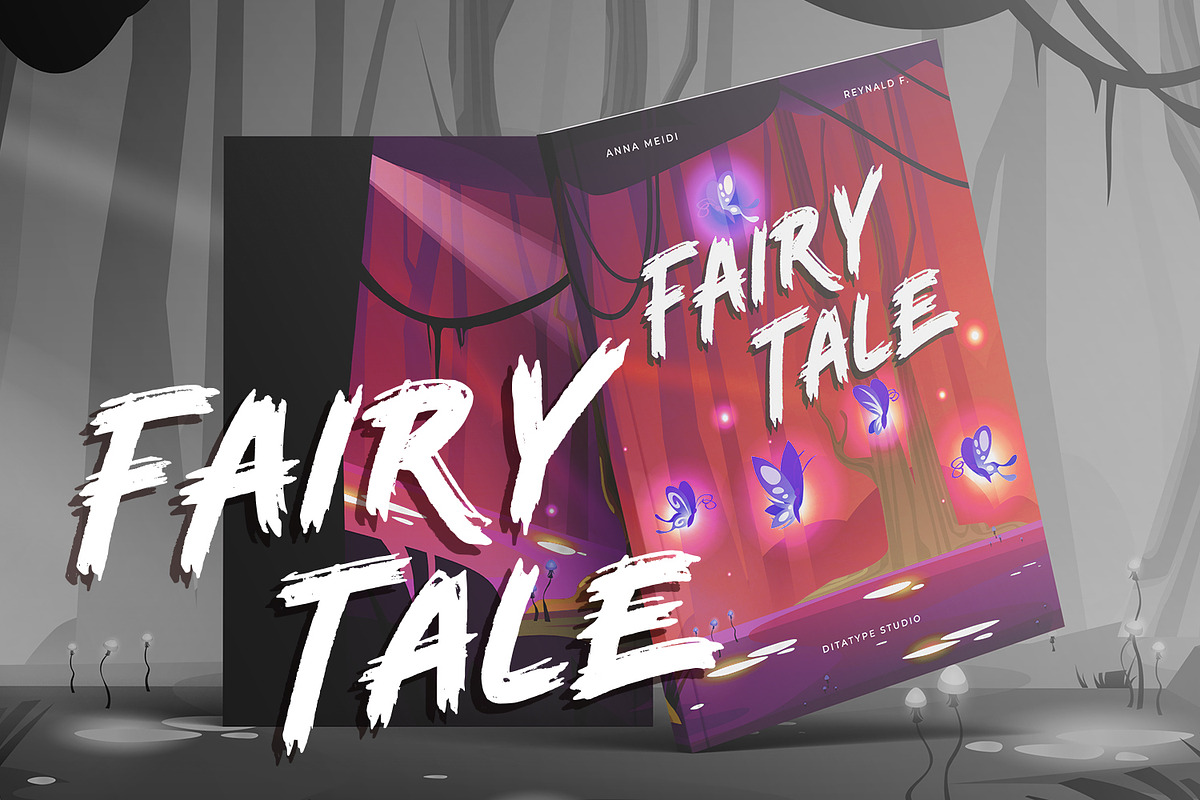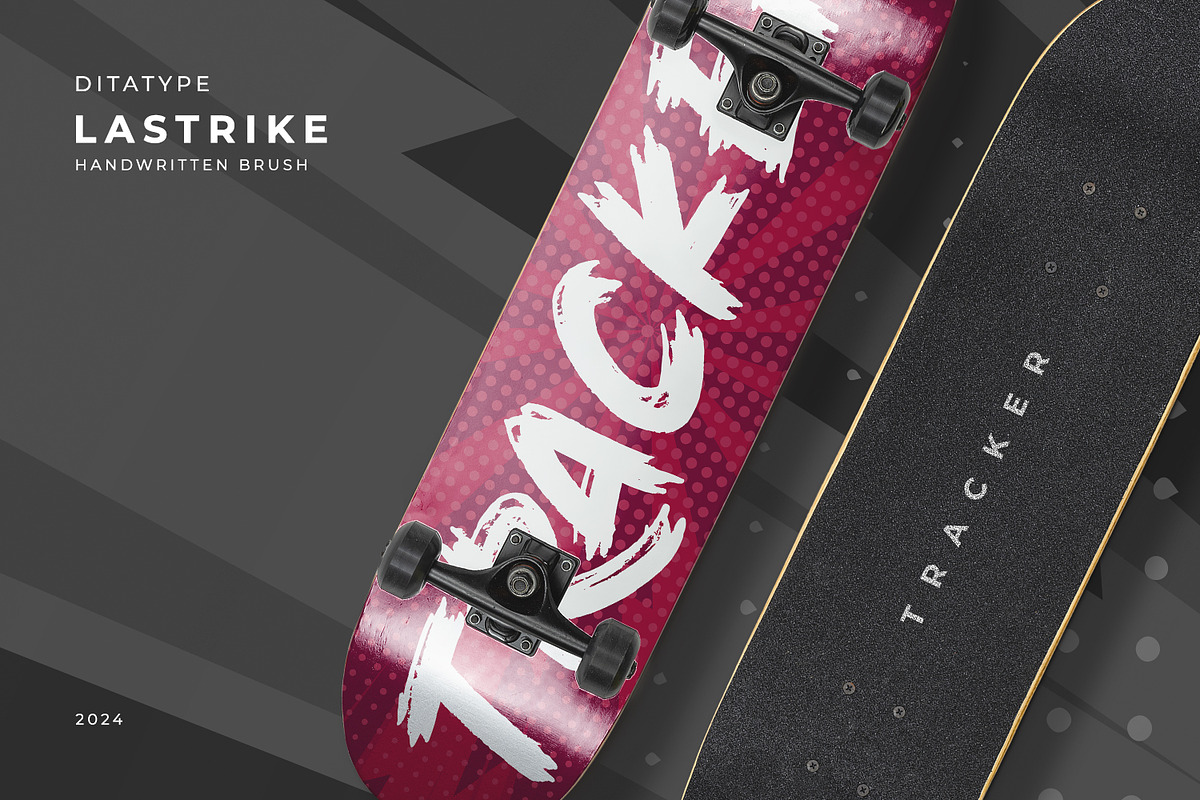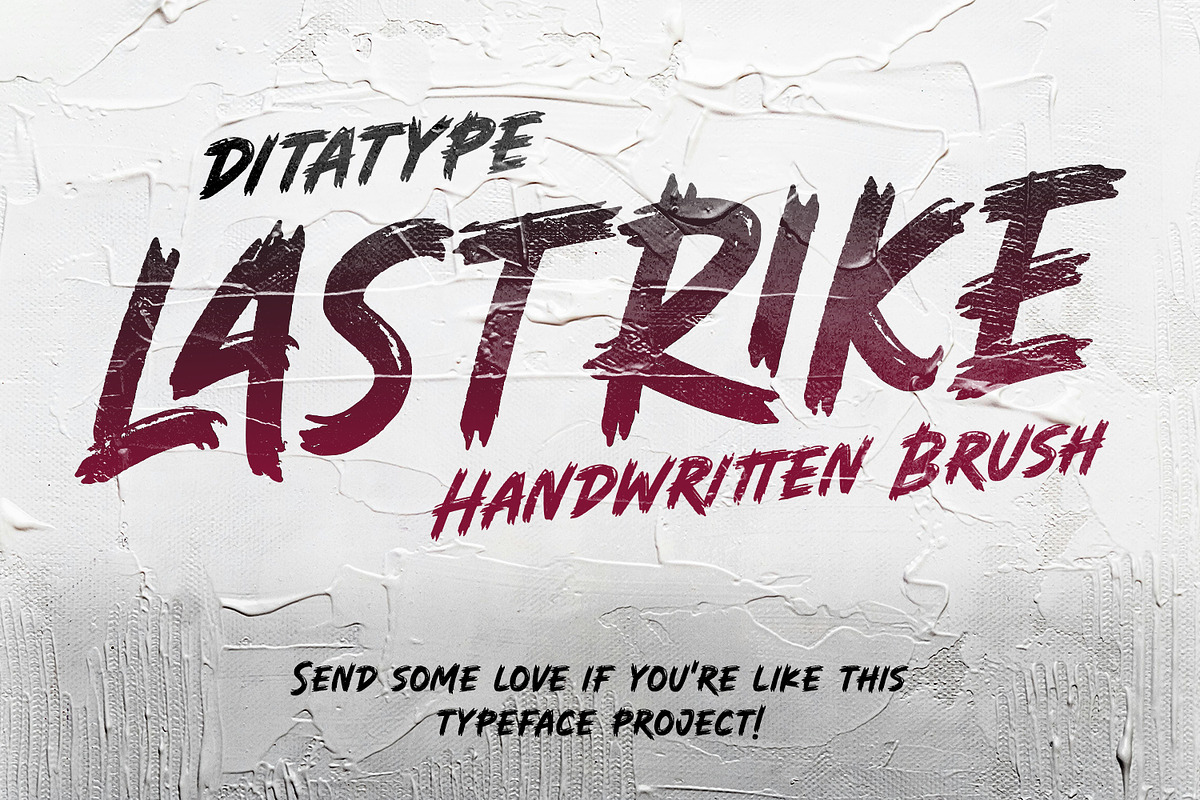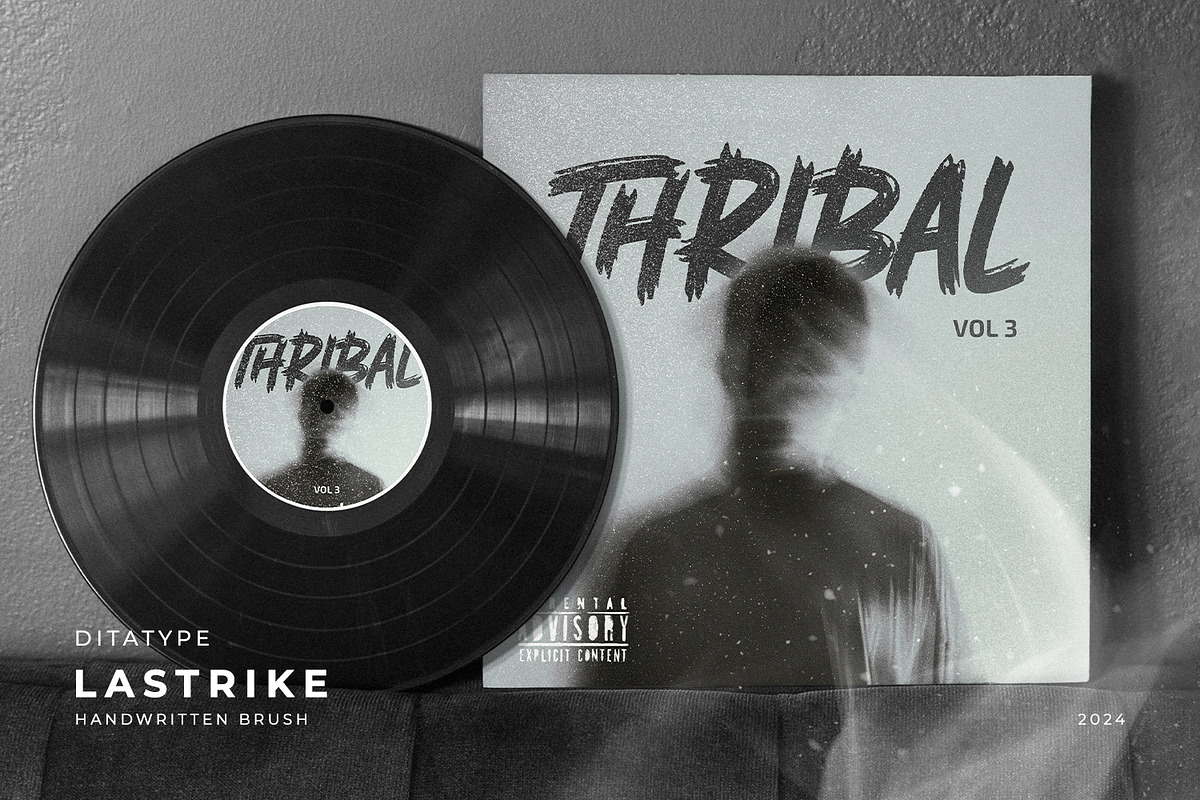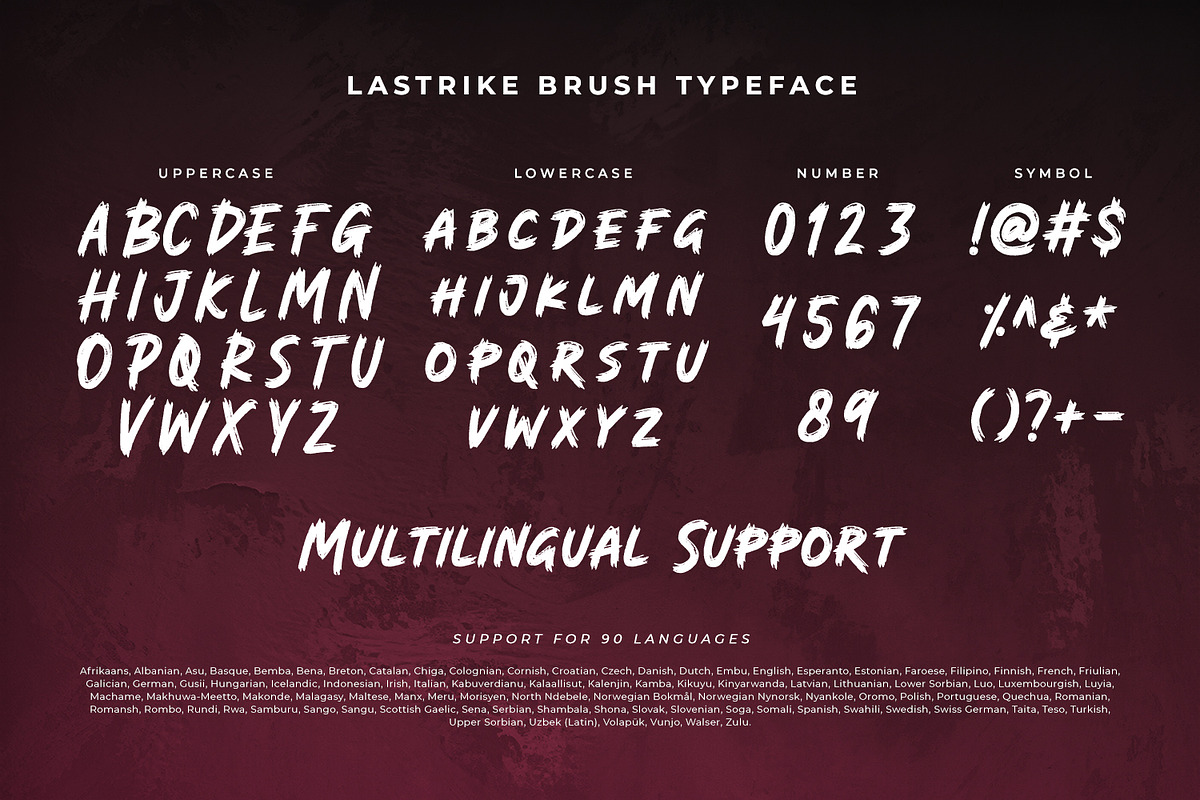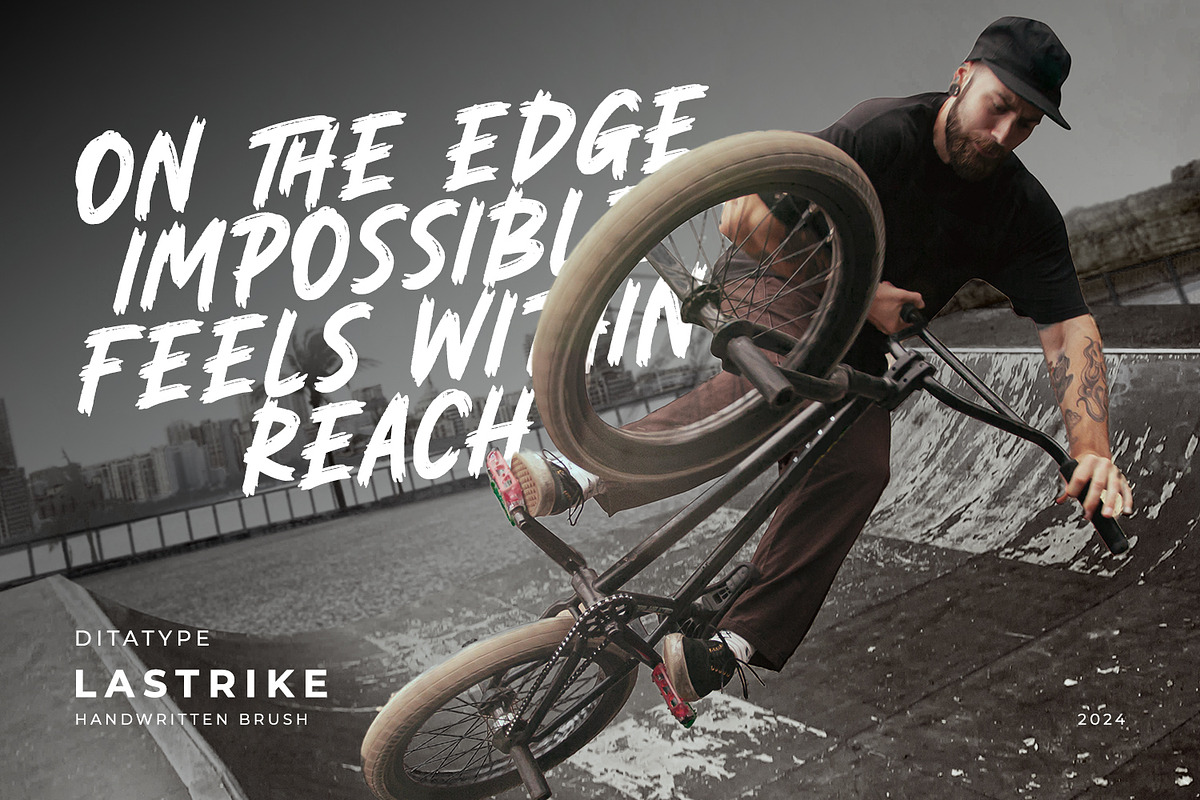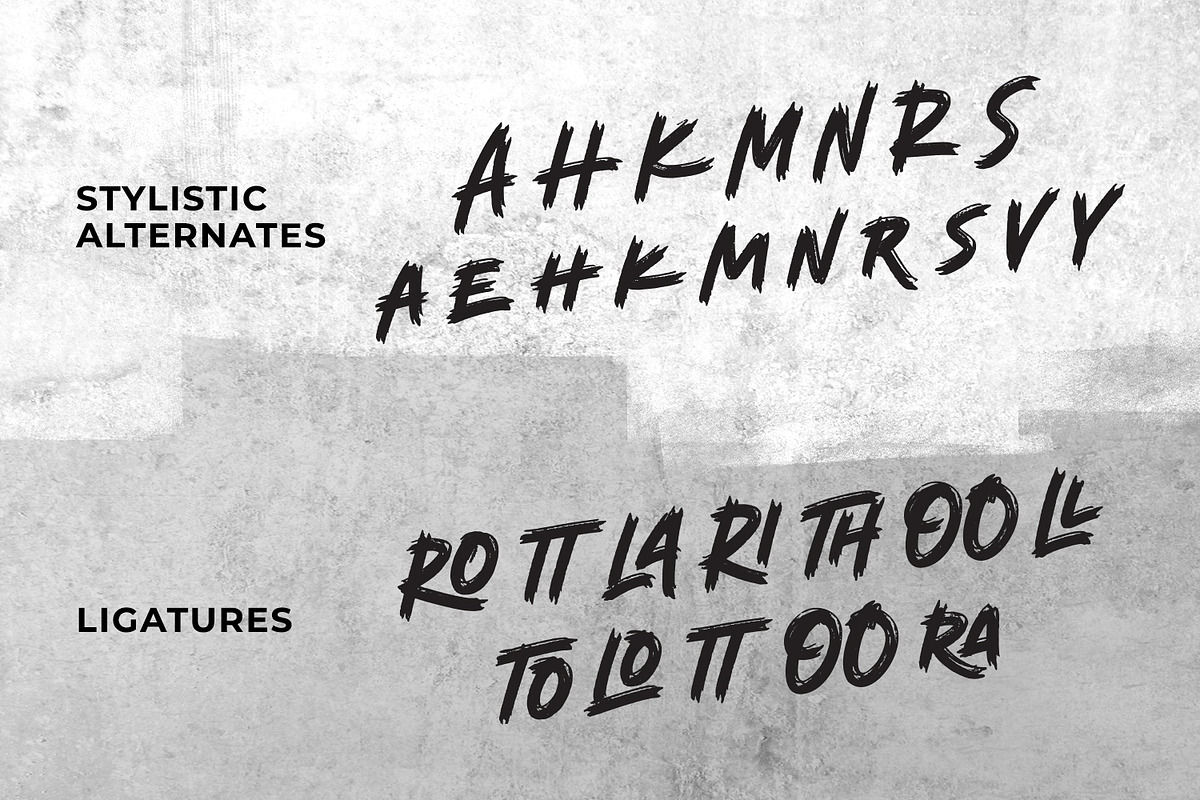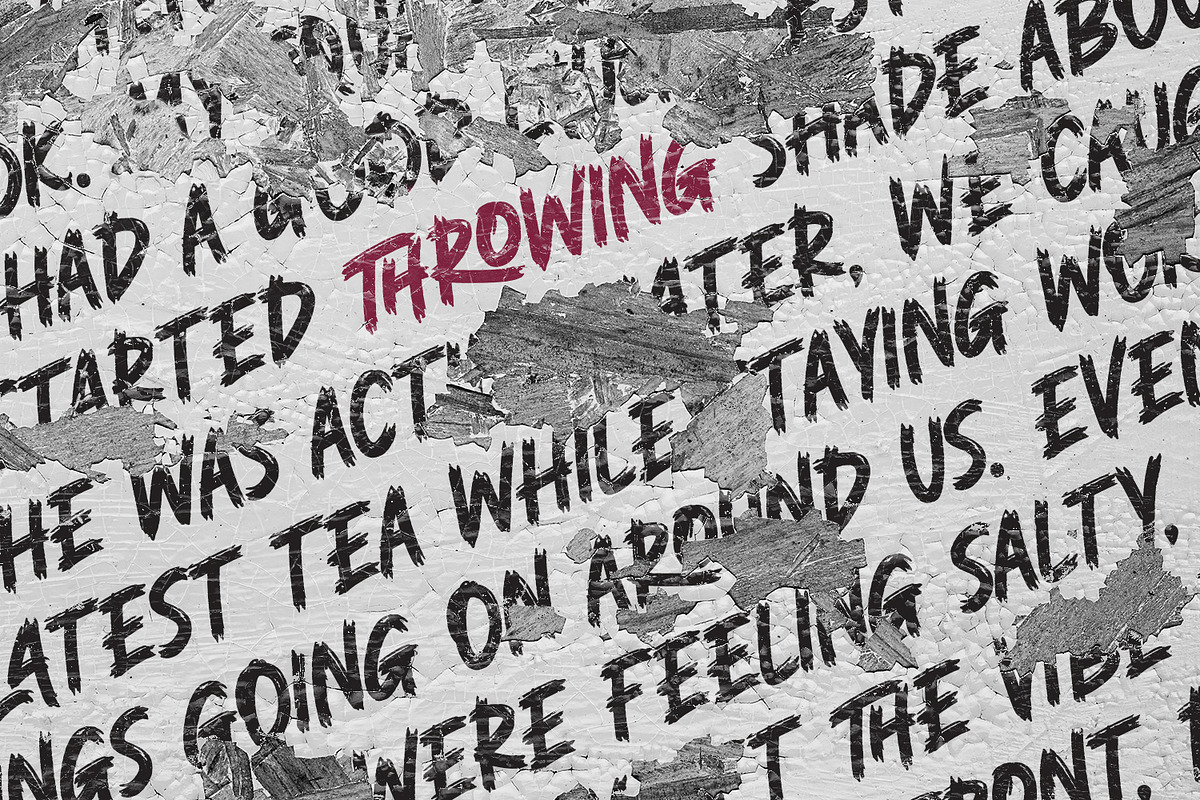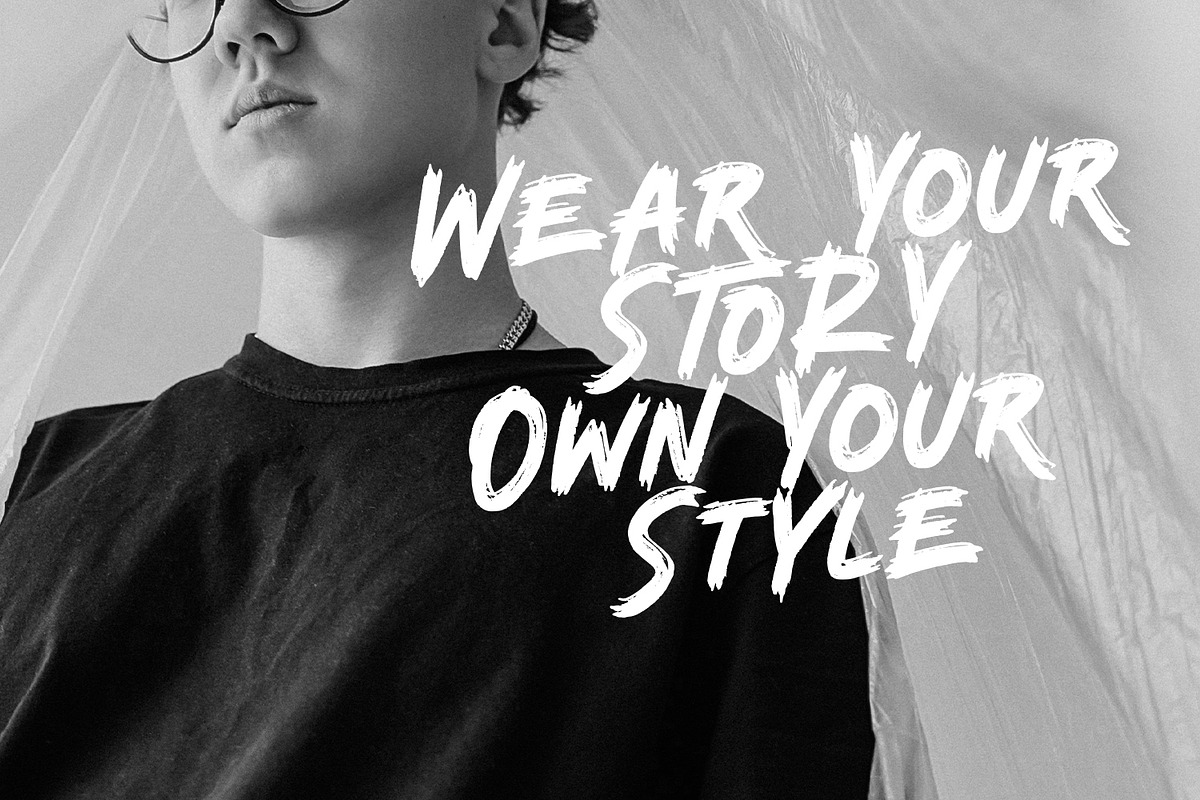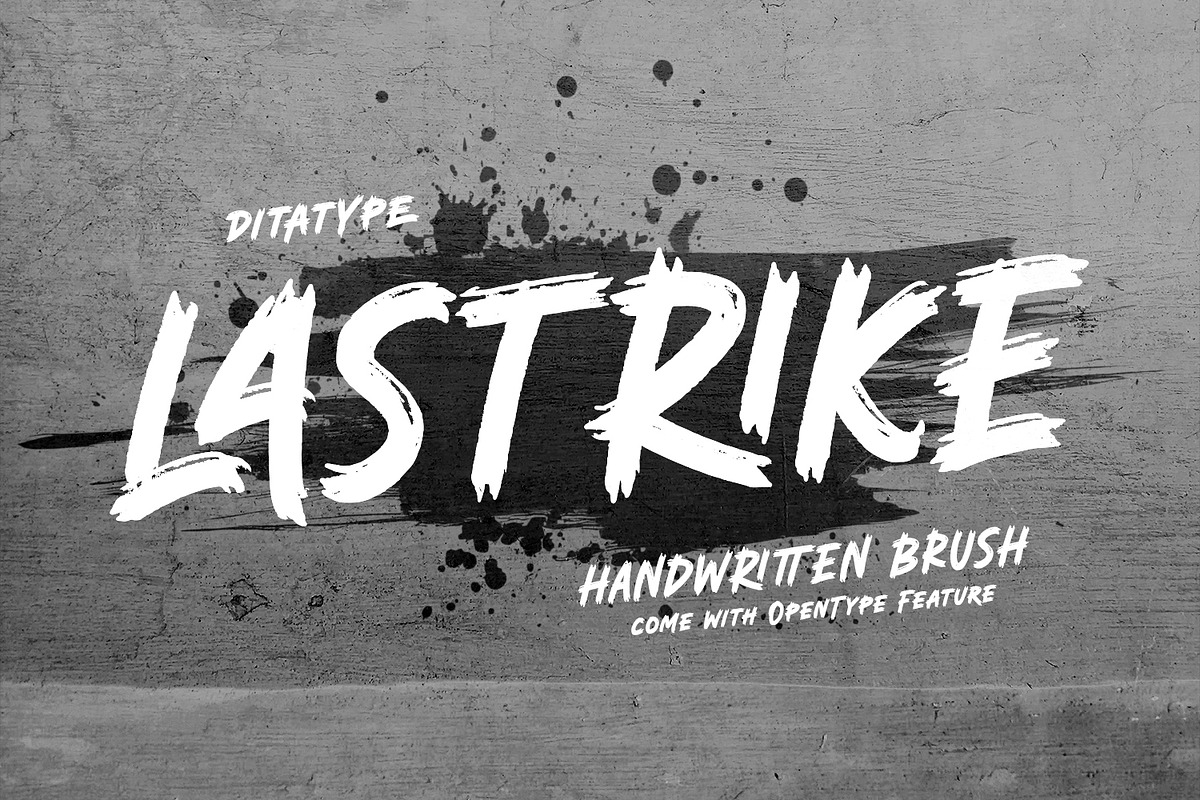
Lastrike
Lastrike is a bold script font with a brush style that exudes urban vibes. Designed with powerful strokes, this font brings energy and attitude to your designs. Both the uppercase and lowercase letters share the same structure, with only their size setting them apart, making it versatile for various text layouts. In addition, enjoy the features here.
Lastrike fits in headlines, logos, posters, branding materials, packaging, print media, editorial layouts, and many more designs. Find out more ways to use this font by taking a look at the font preview.